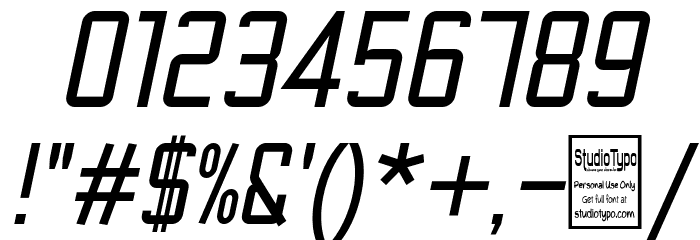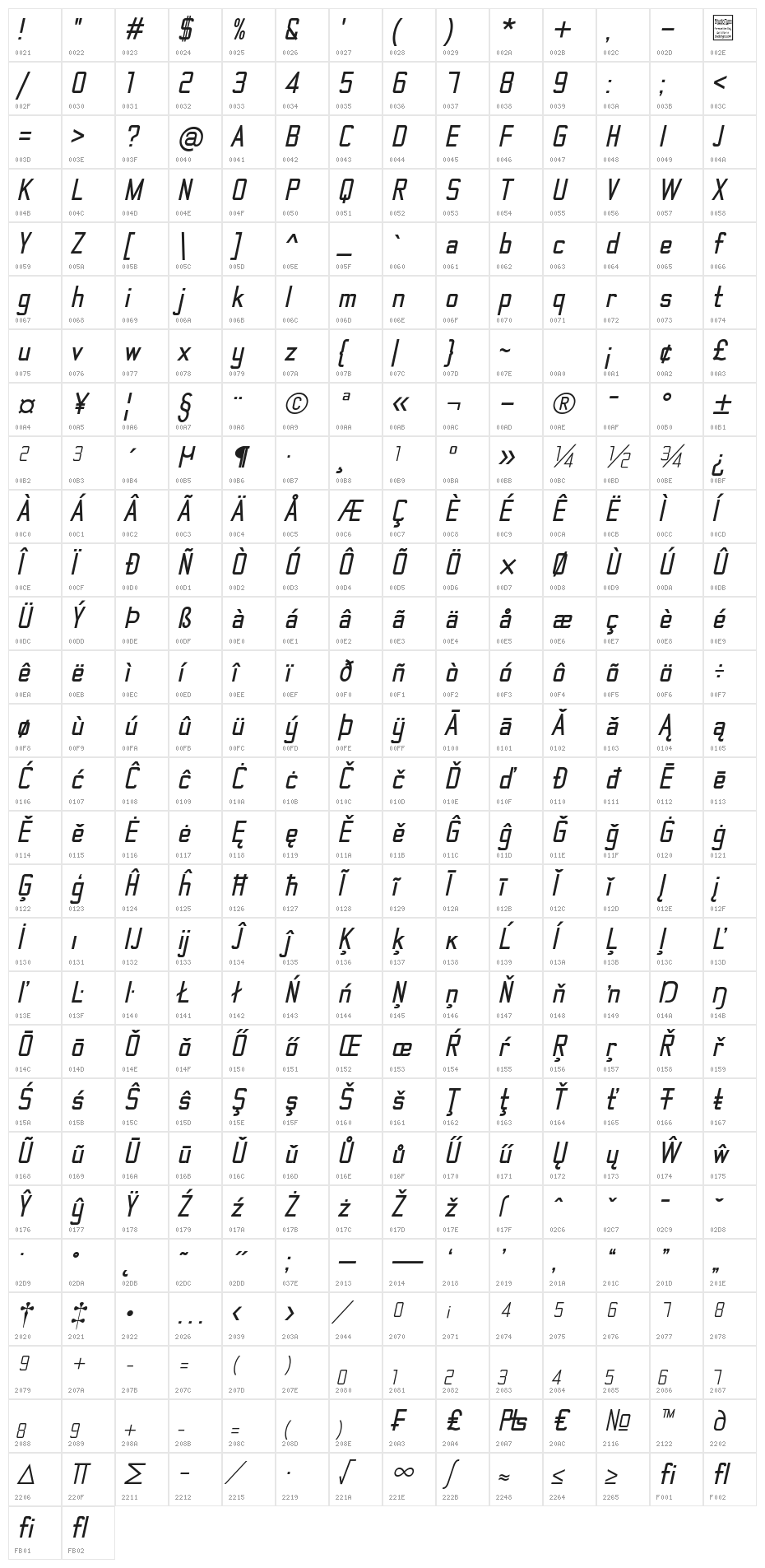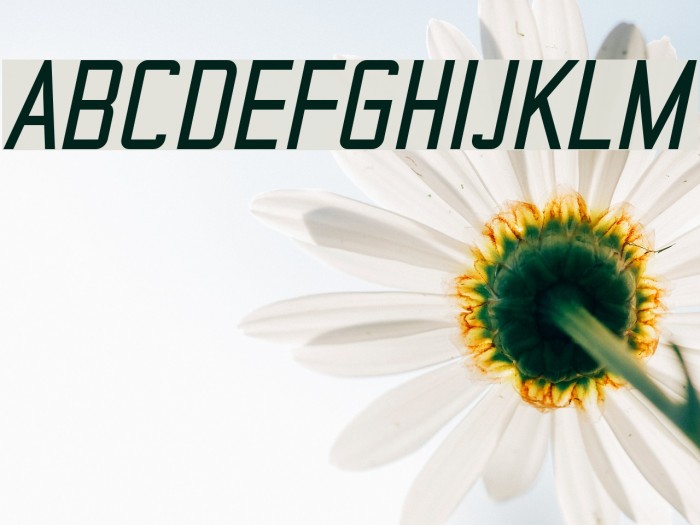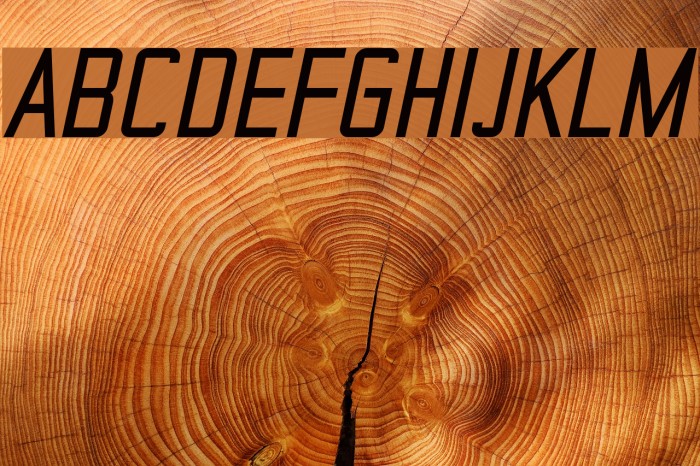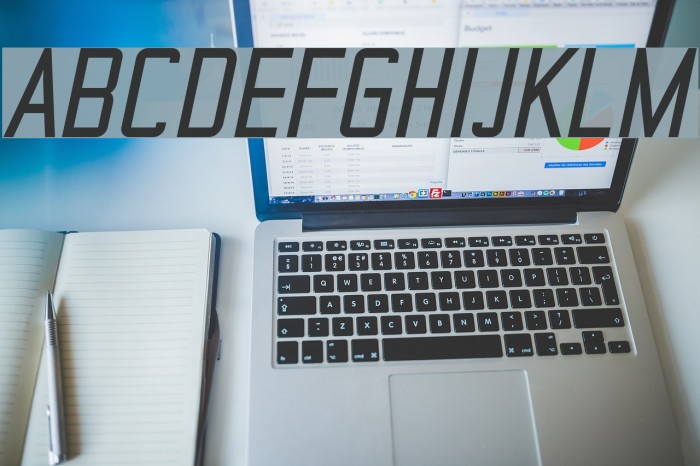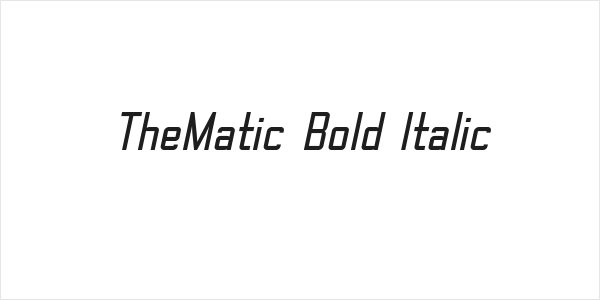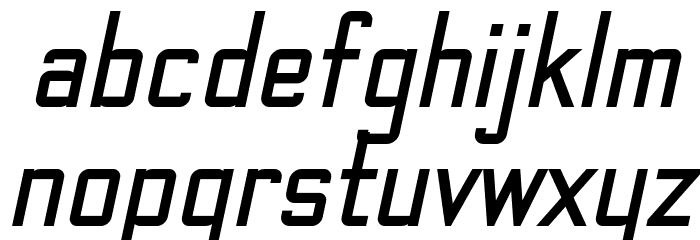
TheMatic Bold Italic Font
TheMatic Bold Italic Description
This font features a bold and italicized style with a modern and sleek appearance. The characters are slightly condensed, giving it a compact look while maintaining clarity and readability. The strokes are consistent in thickness, providing a medium contrast that enhances its legibility. The slanted design adds a dynamic and energetic feel, making it suitable for projects that require a contemporary and stylish touch. The font includes a full set of uppercase and lowercase letters, numerals, and a variety of special characters, ensuring versatility for different design needs.